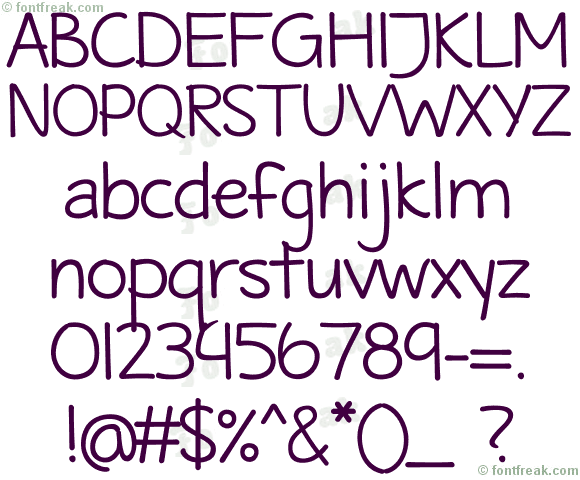
Maritime Tropical Neue
Maritime Tropical Neue Double Bold
Maritime Tropical Neue Double
Maritime Tropical Neue Bold
About Maritime Tropical Neue
Maritime Tropical Neue by Kelvin Ma is a distinctive display font that beautifully encapsulates a maritime and tropical aesthetic. This sans-serif typeface is characterized by its bold strokes and playful curves, making it an eye-catching option for a variety of design projects. The font features a double bold weight, which lends it a sturdy, yet approachable feel. The generous spacing between the letters enhances readability, while the subtle contrast in stroke thickness adds a touch of elegance without sacrificing its bold presence.
Ideal for use in creative fields, Maritime Tropical Neue excels in applications such as wedding invitations, movie posters, restaurant menus, and promotional materials for tropical-themed events. Its vibrant personality resonates well with graphic designers looking to infuse a touch of fun and relaxation into their work. Small business owners seeking to create an inviting atmosphere for their brands will also find this font particularly appealing. Content creators can leverage its unique style to draw attention to headings and calls to action, making their projects stand out.
The target audience for Maritime Tropical Neue includes graphic designers, small business owners, and content creators who value creativity and personality in their typography. The font's ability to blend a tropical vibe with modern design principles makes it a versatile choice for a range of projects.
What sets Maritime Tropical Neue apart is its ability to evoke the essence of laid-back coastal living while remaining functional and versatile. This font not only captures attention but also conveys a sense of warmth and friendliness, making it an ideal choice for anyone looking to make a memorable impression. Don't miss the opportunity to enhance your designs with this striking typeface; you can find the Maritime Tropical Neue font free download available on various platforms.
Author Kelvin Ma